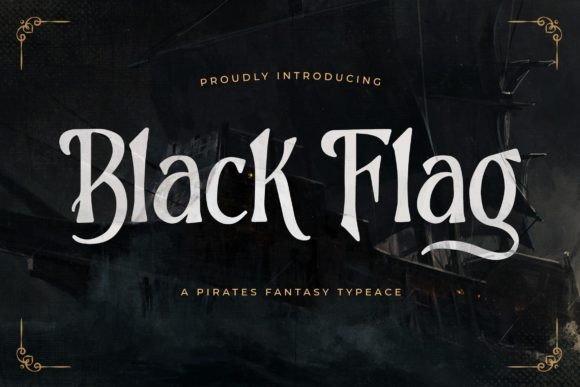
Looking for an adventure in your designs? Look no further than Black Flag Font! This display font, created by TypeFactory, will transport you to a world of pirate fantasy and swashbuckling excitement.
With its bold, striking lettering, Black Flag Font is the perfect choice for any project with a pirate or adventure theme. Whether you're designing a movie poster, creating graphics for a game, or simply looking to add a touch of daring to your branding, this font is sure to make an impact.
But Black Flag Font isn't just stylish - it's also functional. With PUA encoding, you'll have easy access to all of the amazing glyphs and ligatures, making it simple to add unique and eye-catching details to your designs.